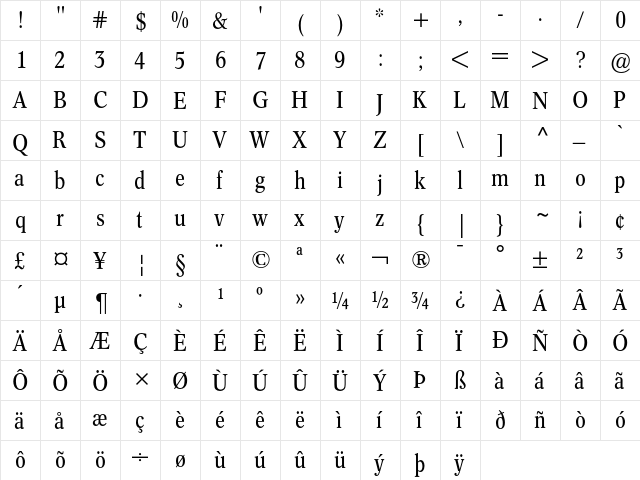
Concorde BE Condensed
Design Context for Concorde BE Typeface
Concorde BE offers clean, dependable letterforms without strong stylistic allegiance, making it a practical choice for designers who need flexibility. Its narrow stance lets it pack a punch even in space-constrained designs.
Pro Tip: Use Concorde BE in both headline and body roles to test its range before committing to a single application.